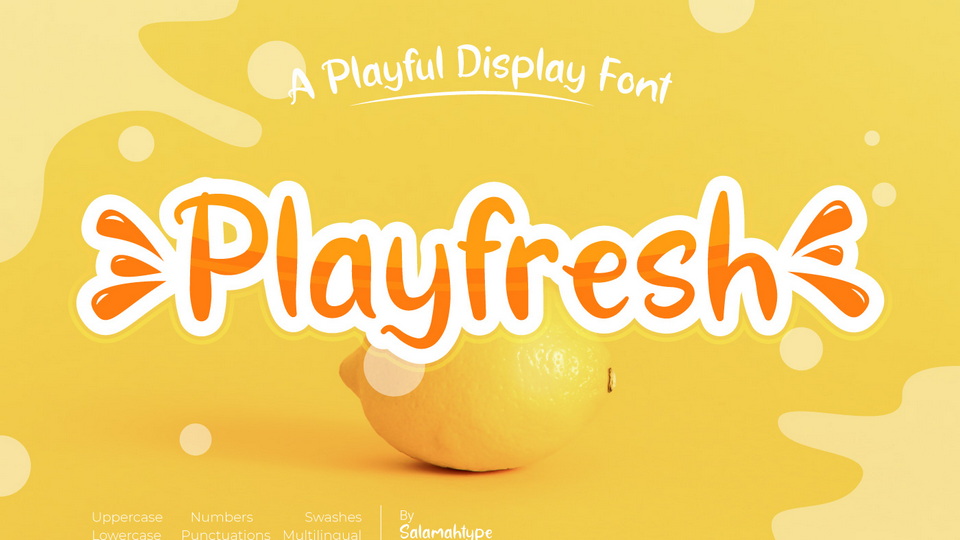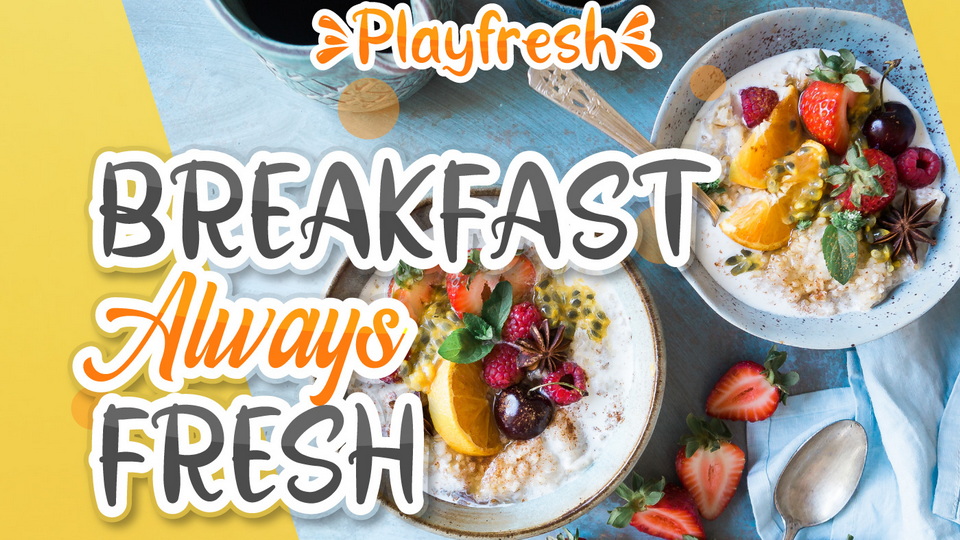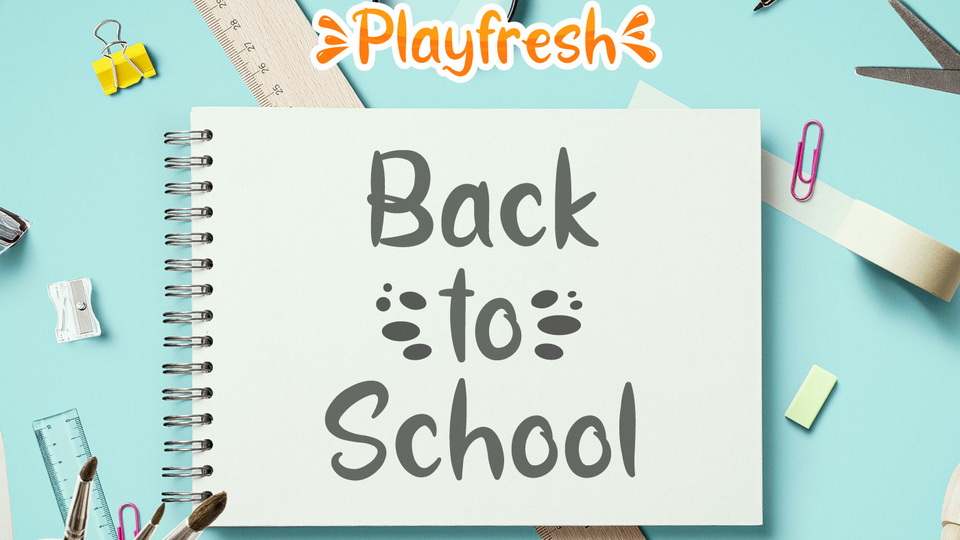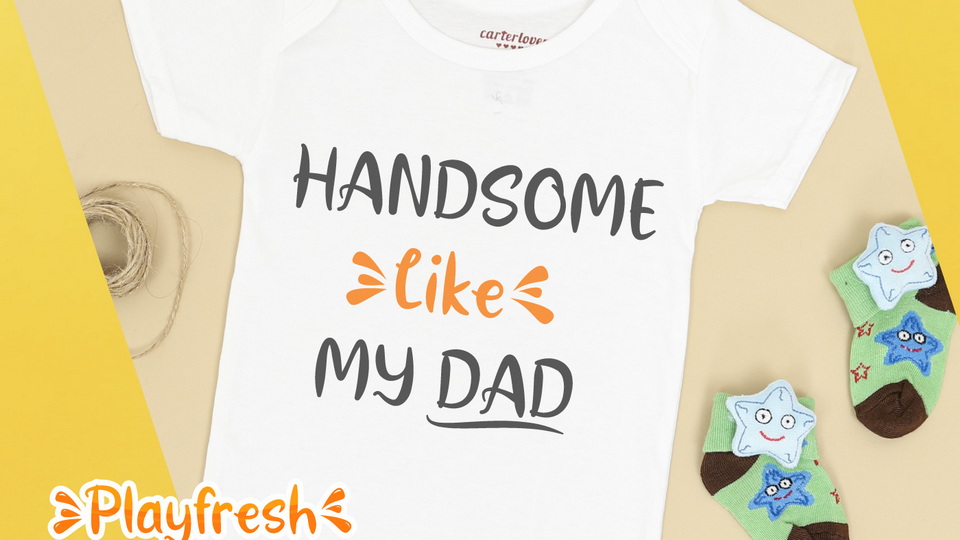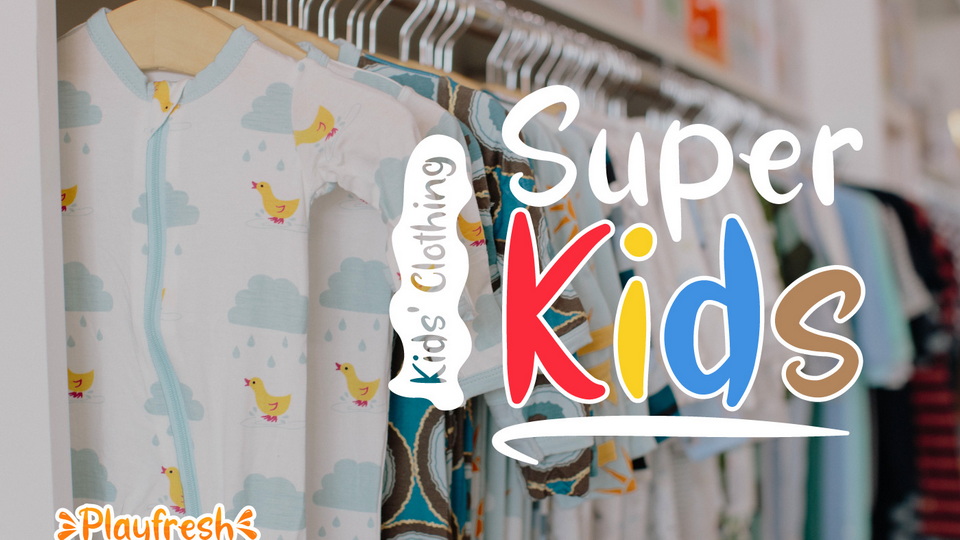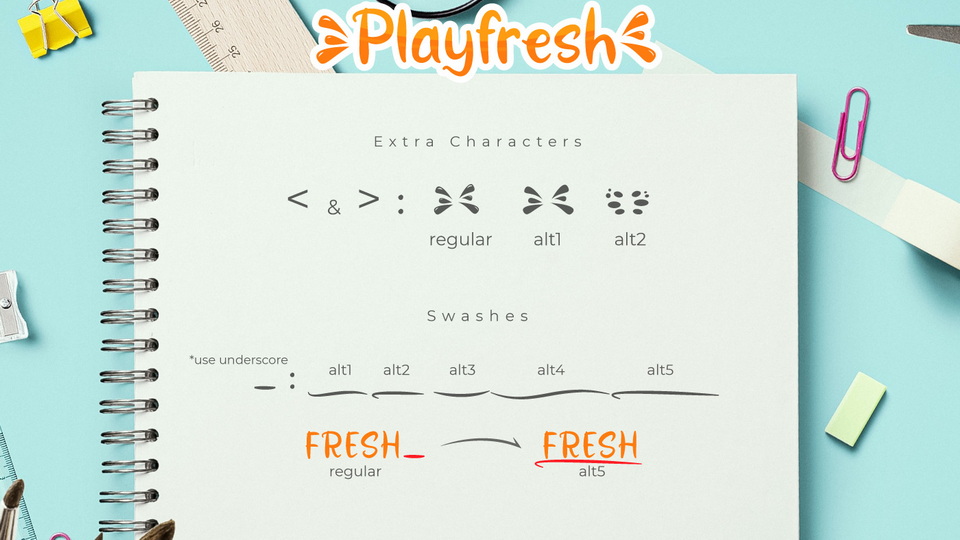
Playfresh is a playful handwritten font, multipurpose for creative projects. Its fun characteristics are designed for kid-friendly products and also suitable for logos, posters, flyers, social media posts, advertisements, product packaging, branding projects, product designs, label and so much more.